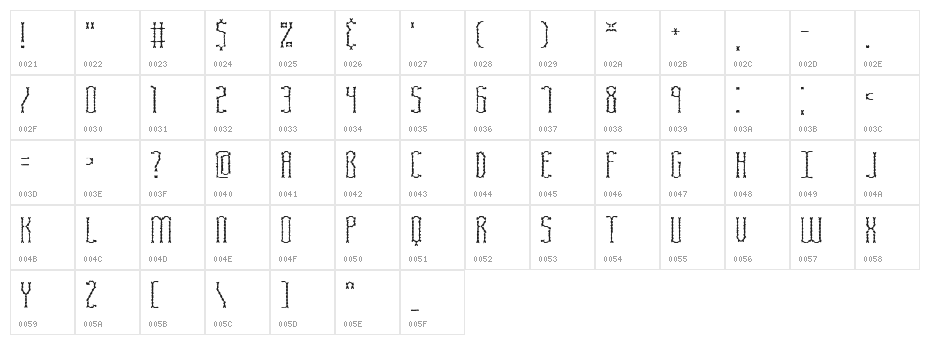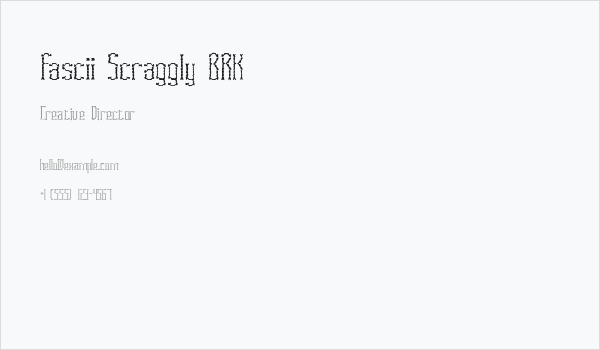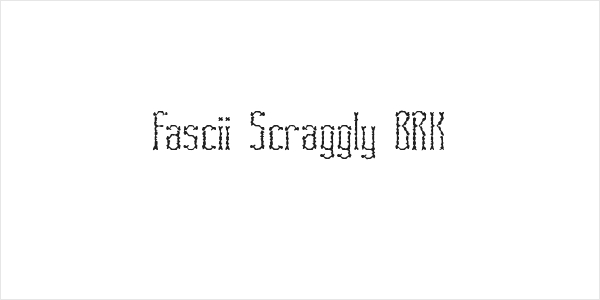
Fascii Scraggly BRK Font
Fascii Scraggly BRK Description
This font features a unique, jagged design that resembles a scraggly, hand-drawn style. The characters are composed of irregular, zigzag lines that give it a distinctive, textured appearance. Each letter and number maintains a consistent height, but the uneven edges create a sense of movement and energy. The font is highly decorative, making it suitable for creative and artistic projects. Its quirky and playful nature can add a touch of whimsy to any design, while still maintaining legibility. The special characters follow the same scraggly pattern, ensuring a cohesive look across all elements.
| Proposed Projects | Ideal for artistic projects, children's book covers, posters, and creative branding. |